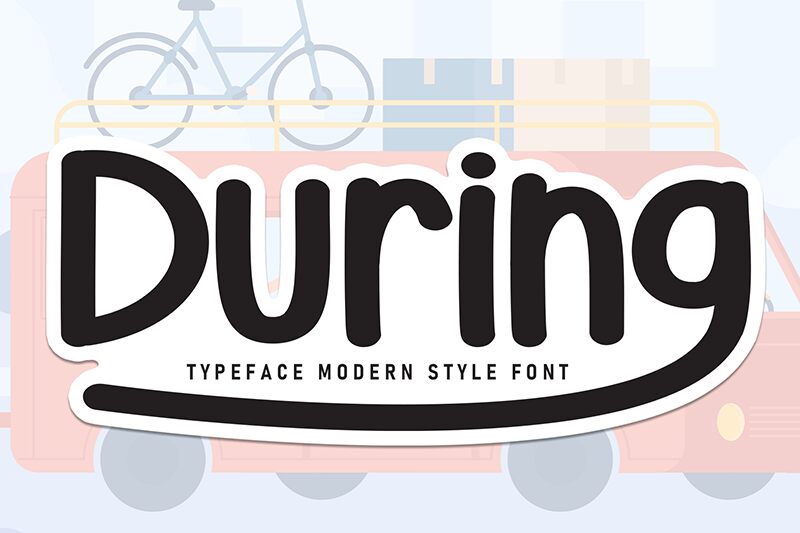
During
During font by Andi Moz is a rounded, friendly handwritten font with a touch of whimsy. The letters carry an inviting vibe due to their smooth curves and irregular finishes which all together allow for a natural visual flow. Its casual and approachable appearance makes it perfect for projects that require a carefree design style.
Use cases include branding, packaging, POS materials, invitation cards (wedding/party), e-cards (holiday/postcards), reports covers, greeting cards, labels, posters signage/social media posts. Download this free handwritten font at no extra charges from its author or the link posted here!